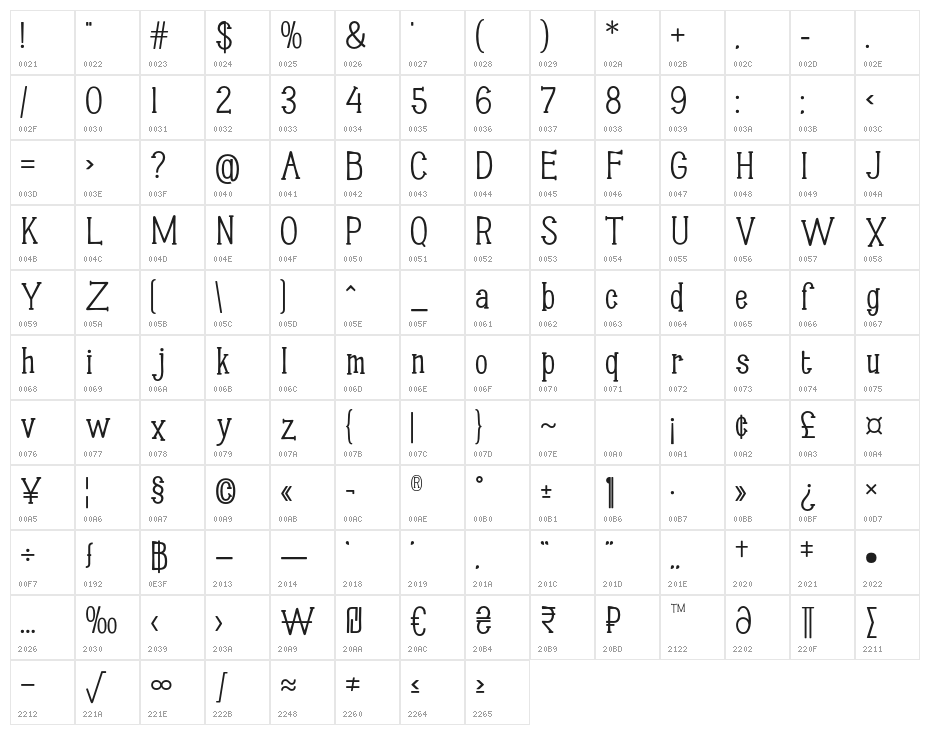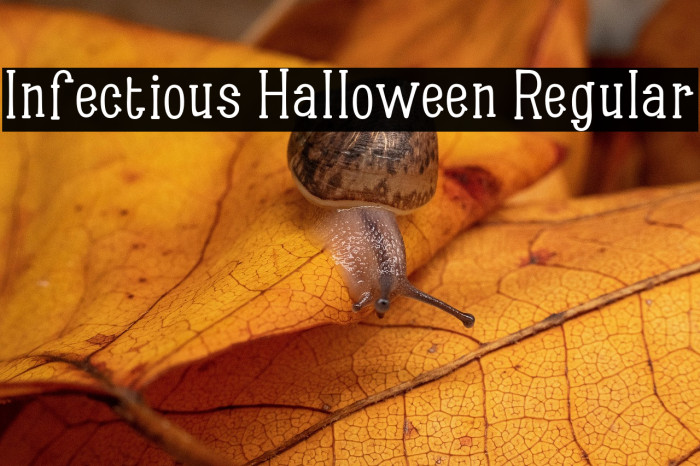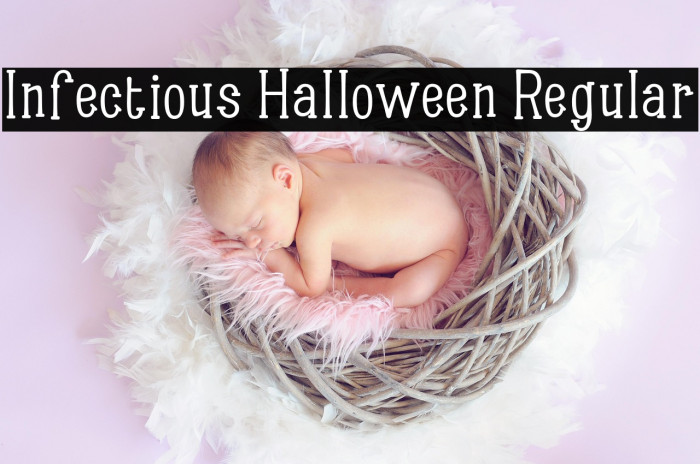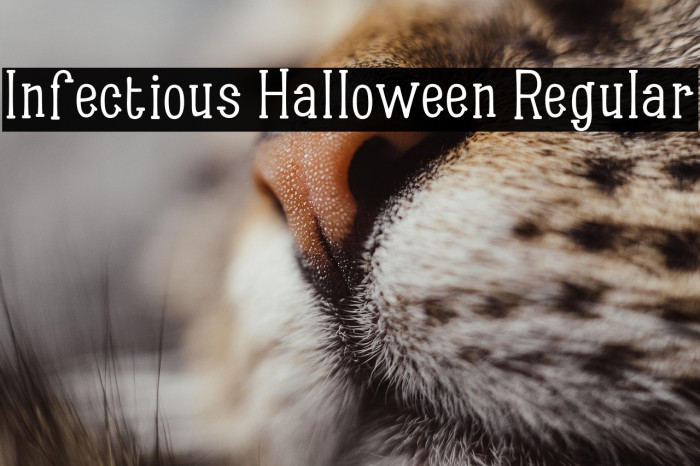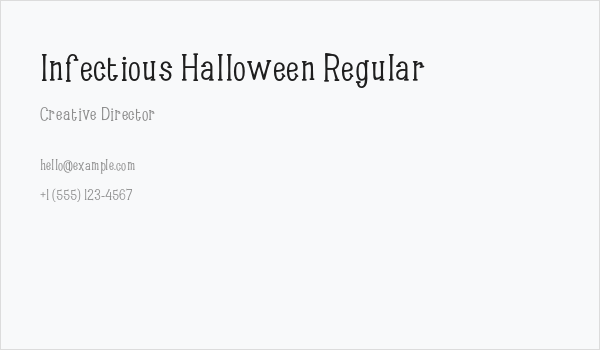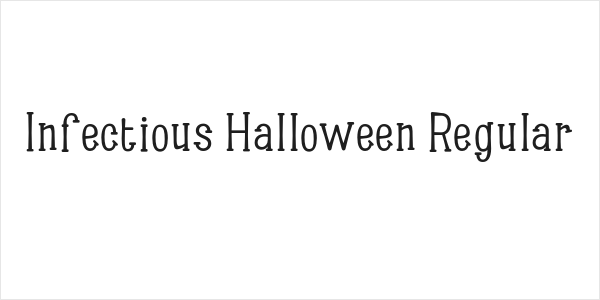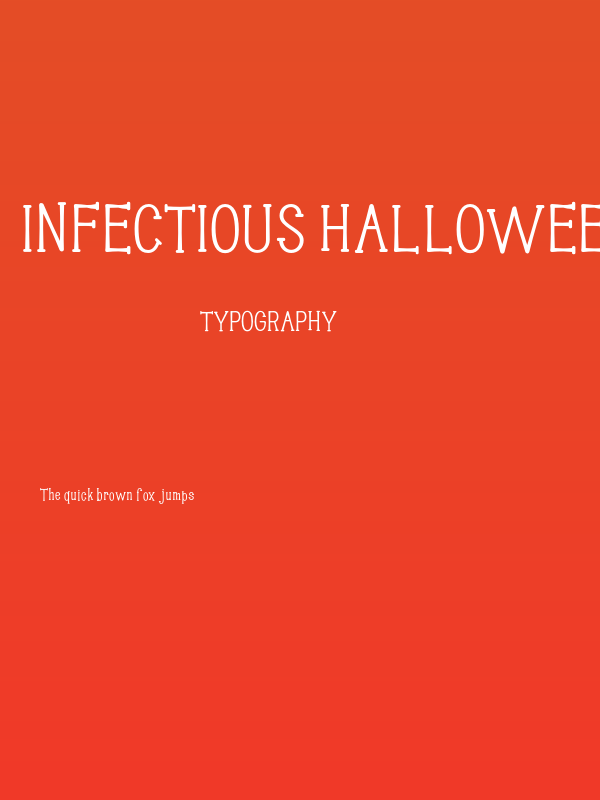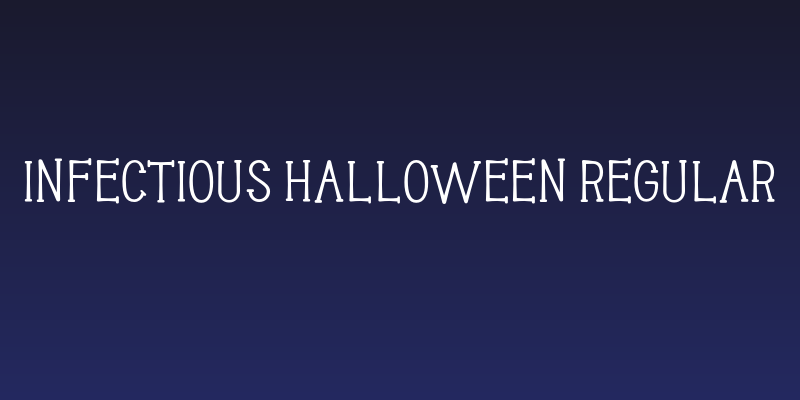
Infectious Halloween Regular Font
Infectious Halloween Regular Description
This font features a playful and slightly eerie design, perfect for themes that require a touch of whimsy and spookiness. The characters are tall and narrow, with a hand-drawn appearance that gives them a unique and quirky personality. The uppercase letters are bold and prominent, while the lowercase letters maintain a consistent style with slightly exaggerated curves and angles. Numbers and special characters follow the same design principles, ensuring a cohesive look across all text. The font's irregular strokes and subtle imperfections add to its charm, making it ideal for creative projects that embrace a fun and unconventional aesthetic.
| Use Case | Headlines, Logos, Themed Invitations |
| Proposed Projects | Ideal for Halloween-themed designs, party invitations, posters, and creative branding projects. |